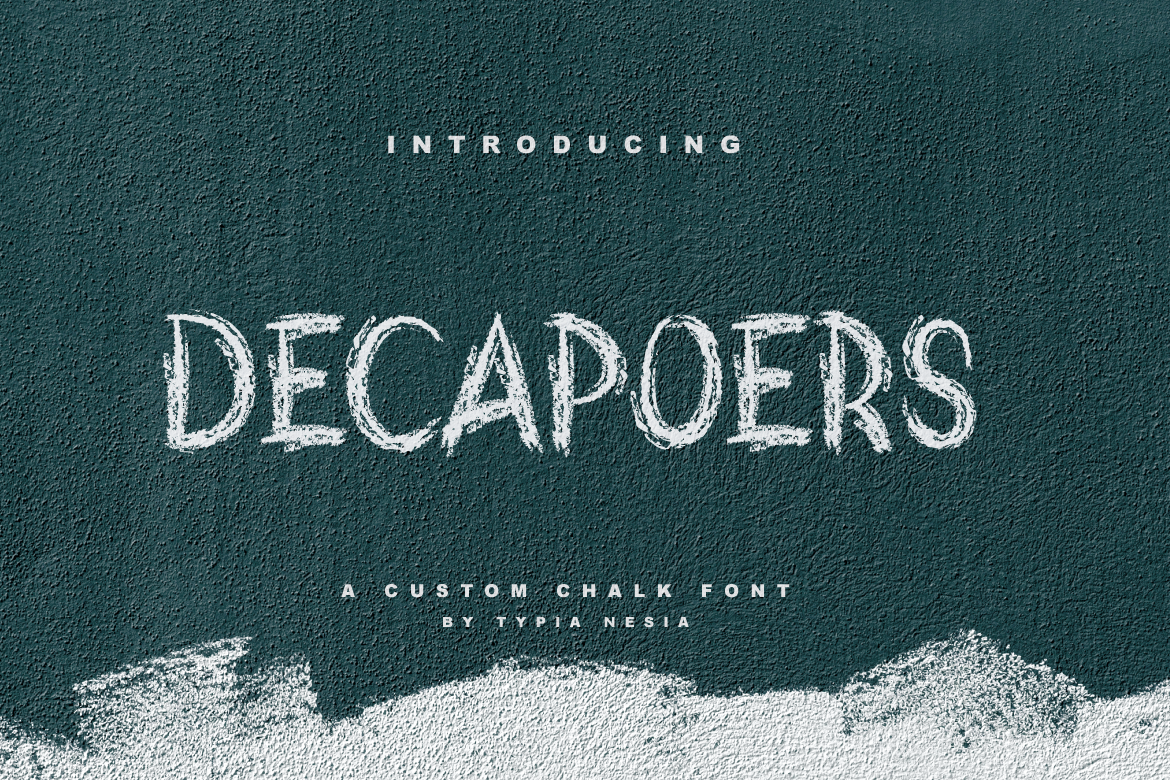
DeCapoers is a Custom Chalk Font. It suitable for branding, t-shirt, poster, flyer, advertising design, packaging, book cover, hipster design, cards, and more.
DeCapoers